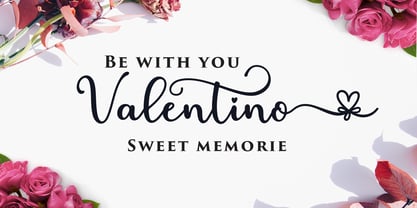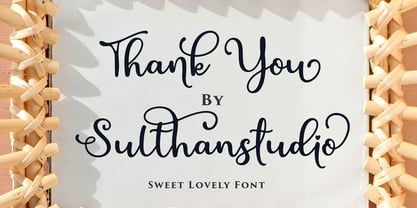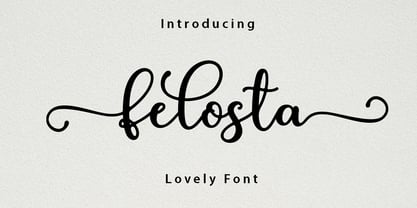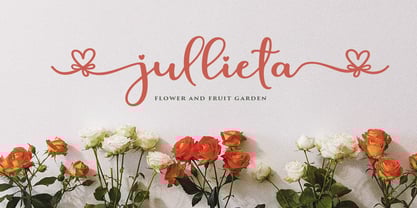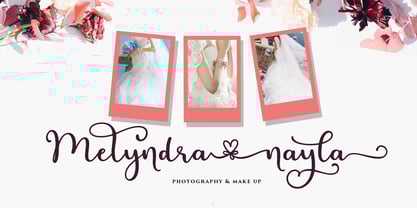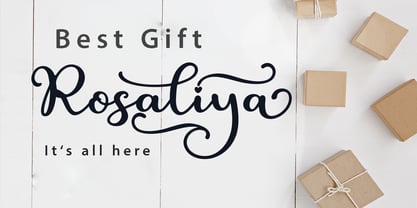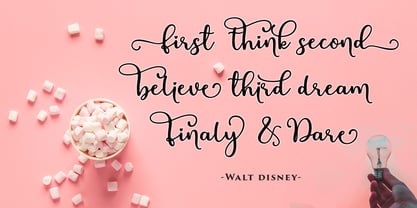
Felosta
by Sulthan Studio
The Felosta Font Family was designed by Nasrullah and published by Sulthan Studio. Felosta contains 1 styles. More about this family
Felosta script is a new, fresh calligraphy font that is attractive and elegant, with a few cute ties in the heart that can be connected.
Great for invitations, greeting cards, branding materials, business cards, quotes, posters, and more!
Designers: Nasrullah
Foundry: Sulthan Studio